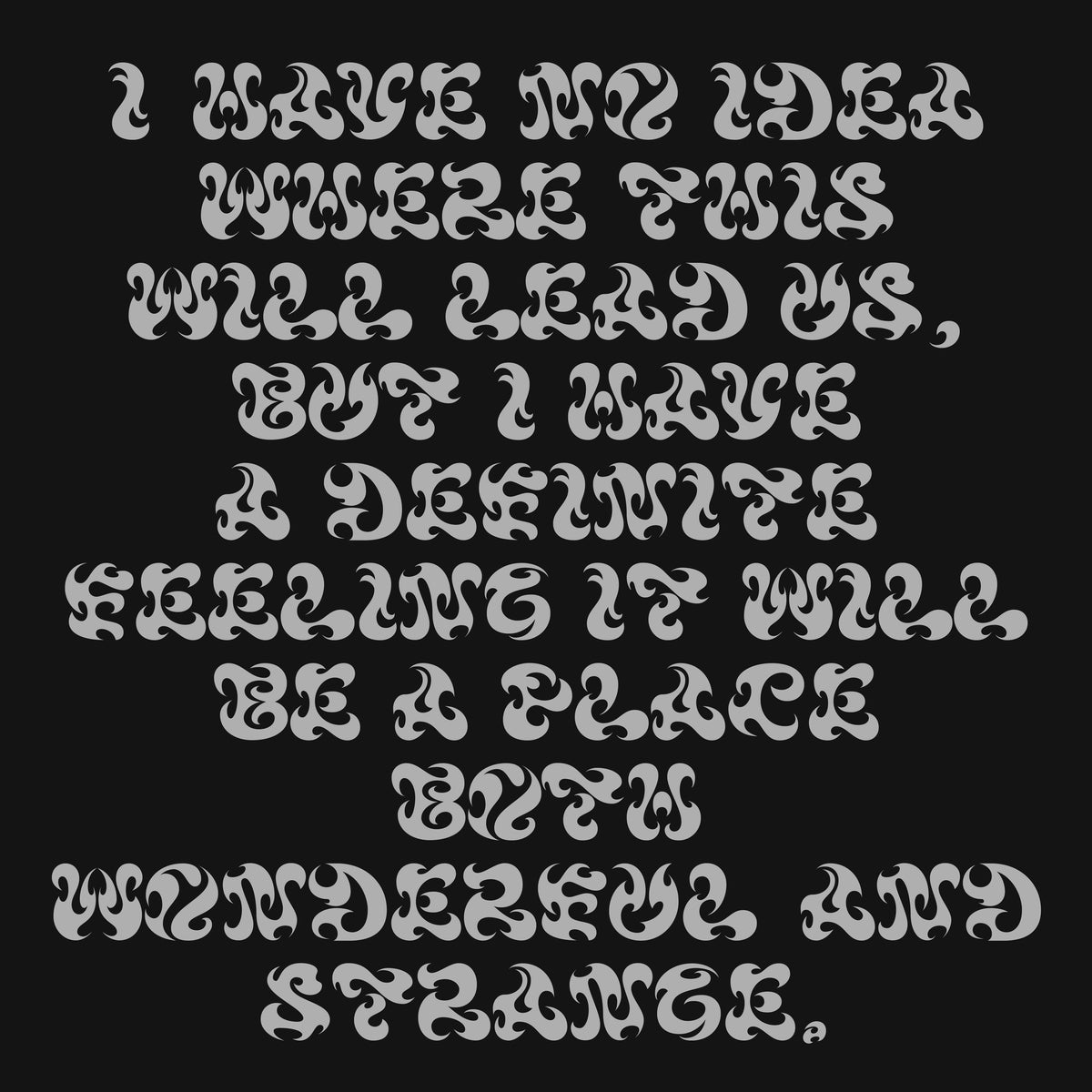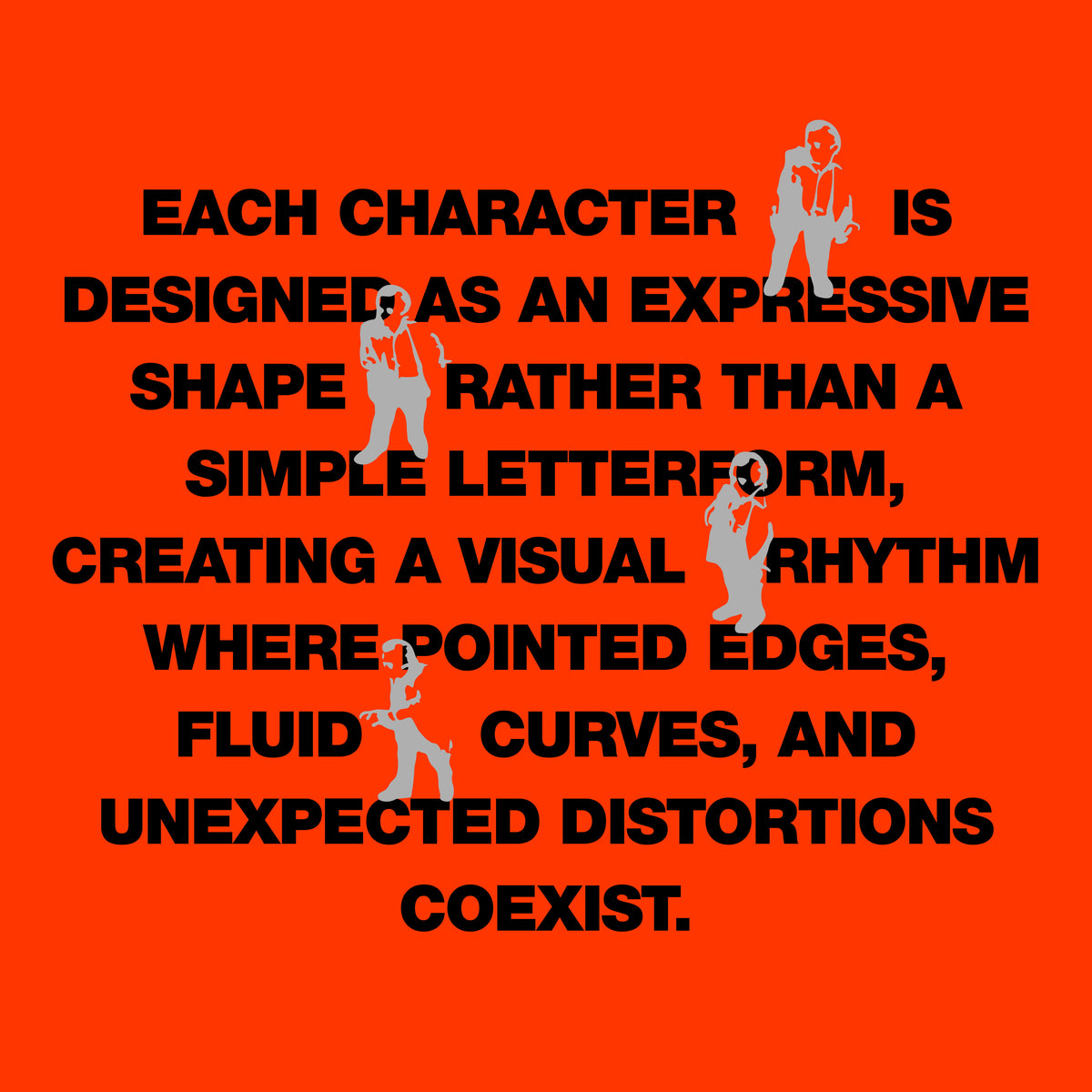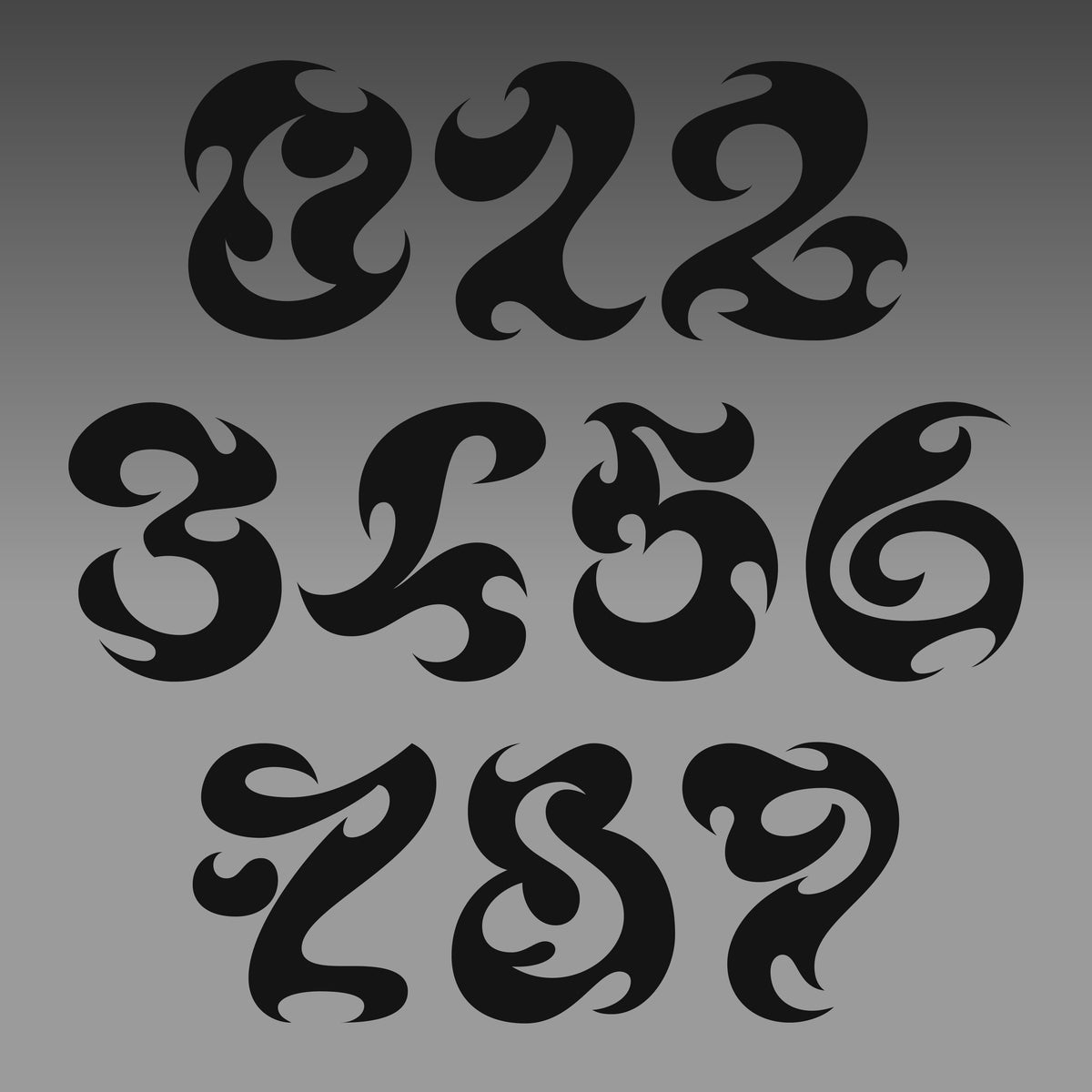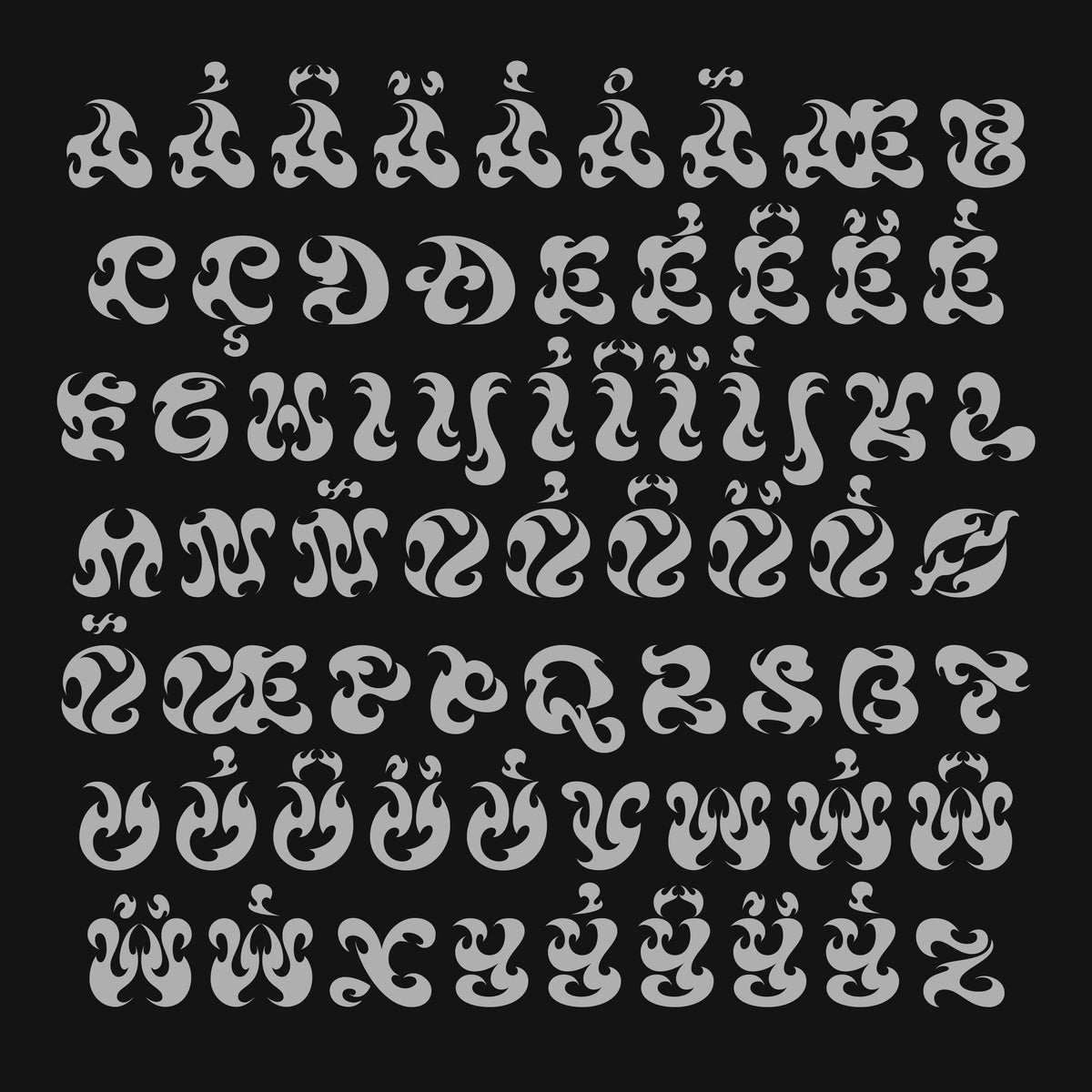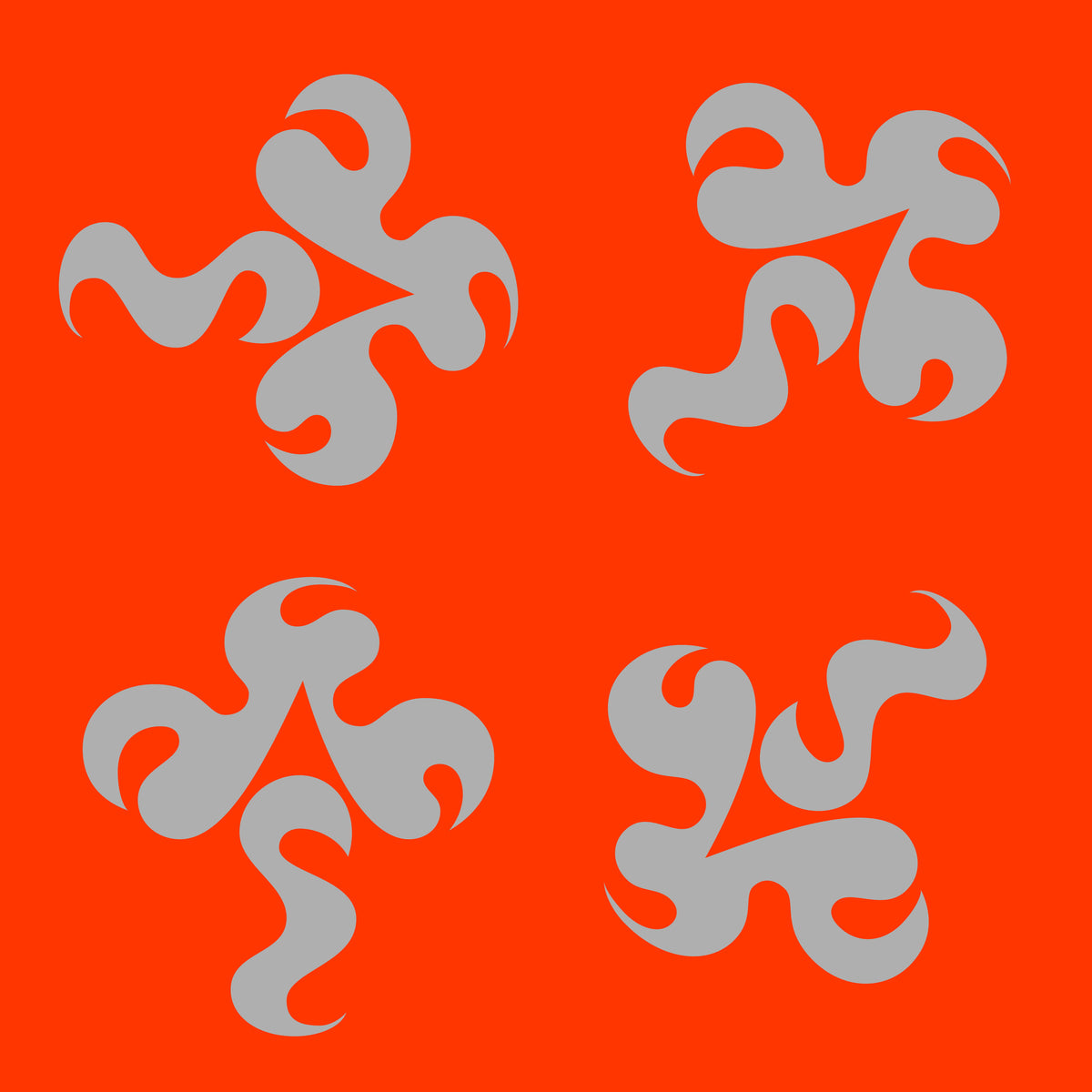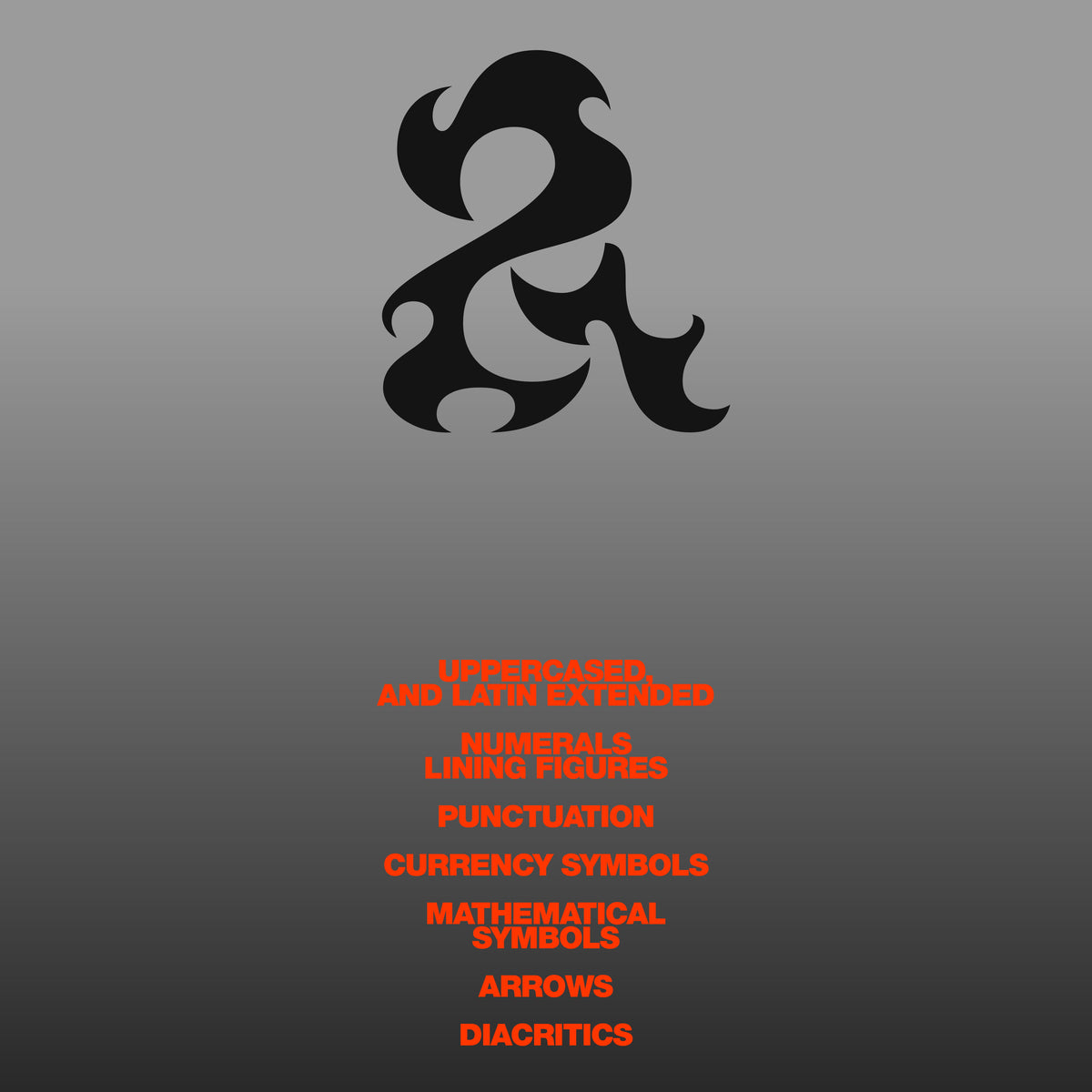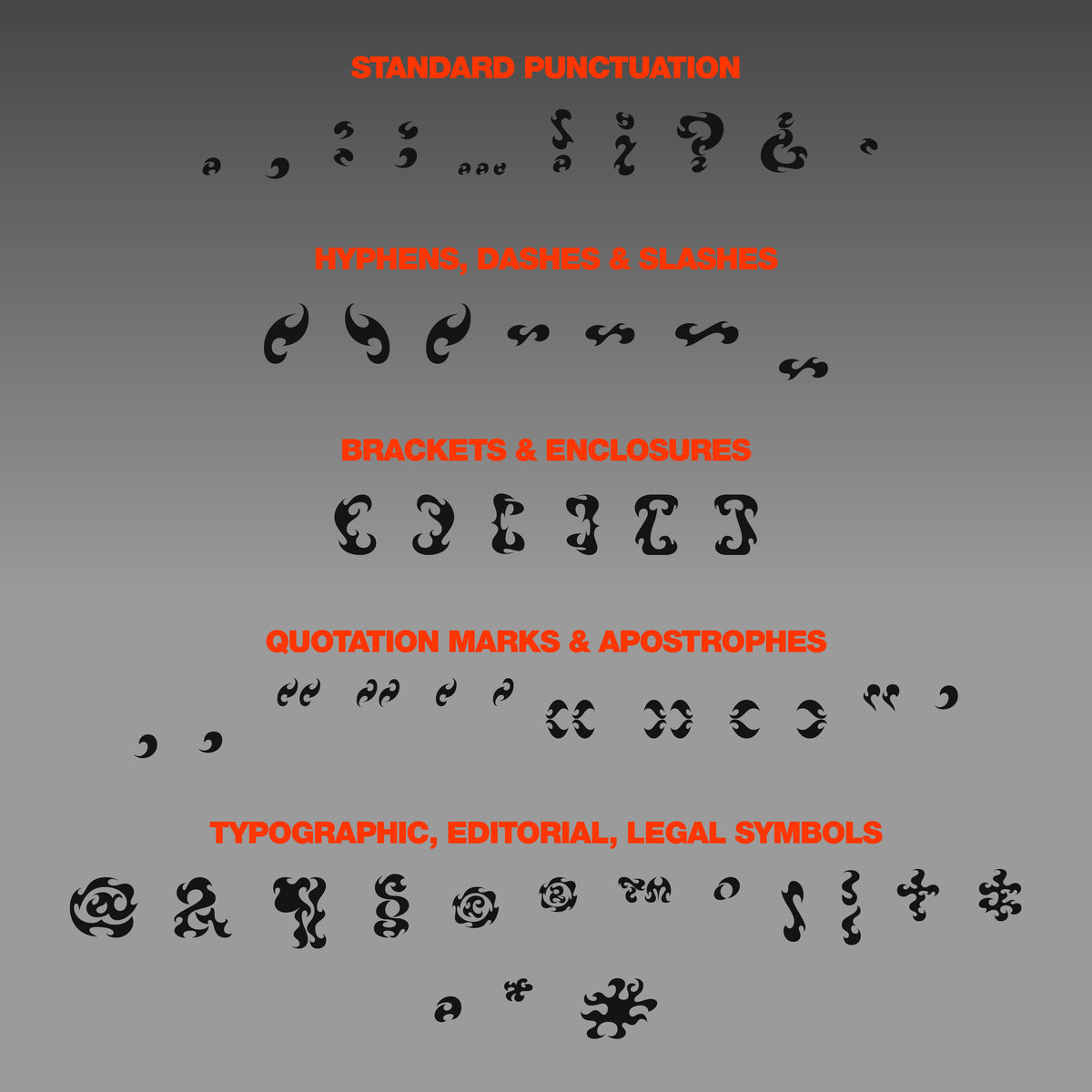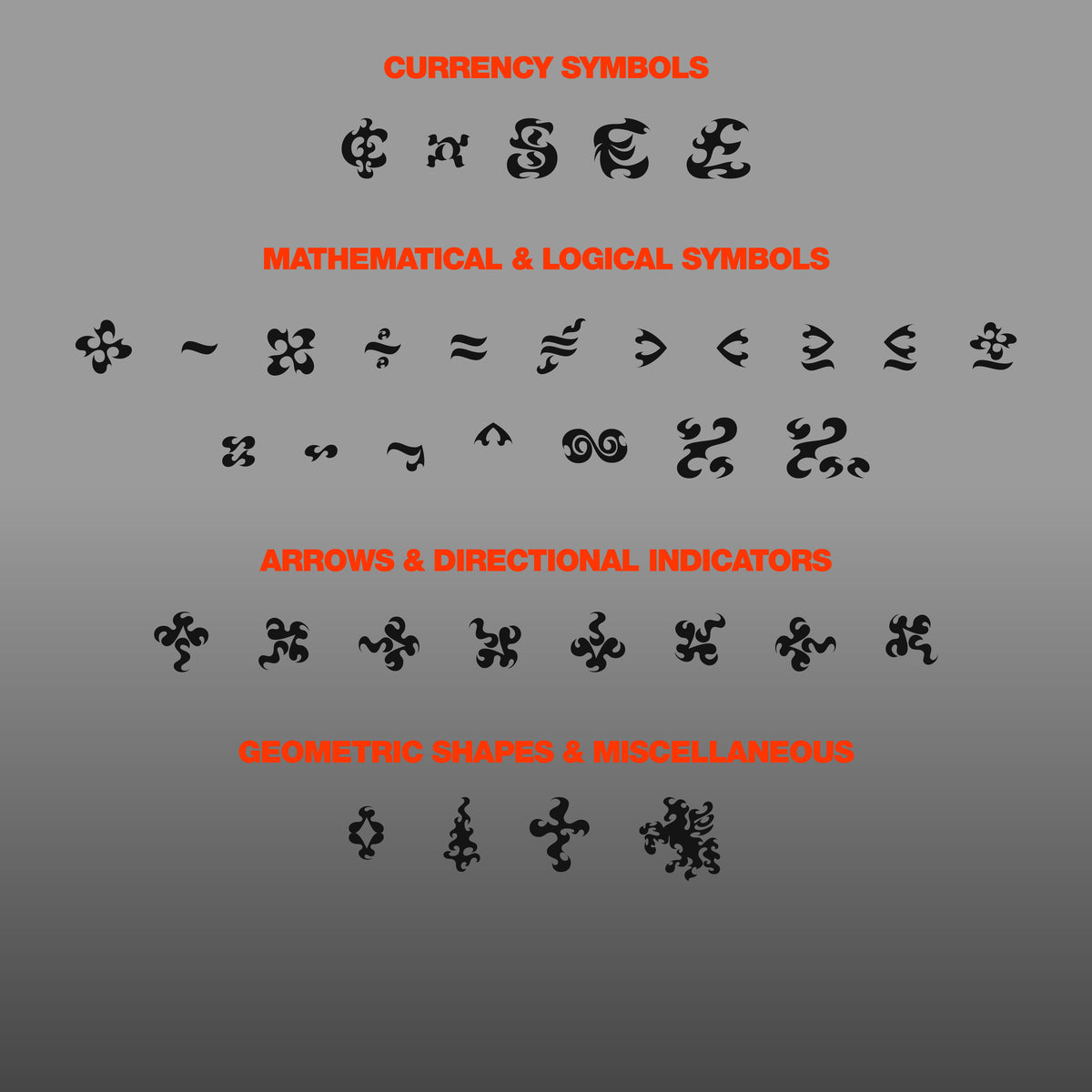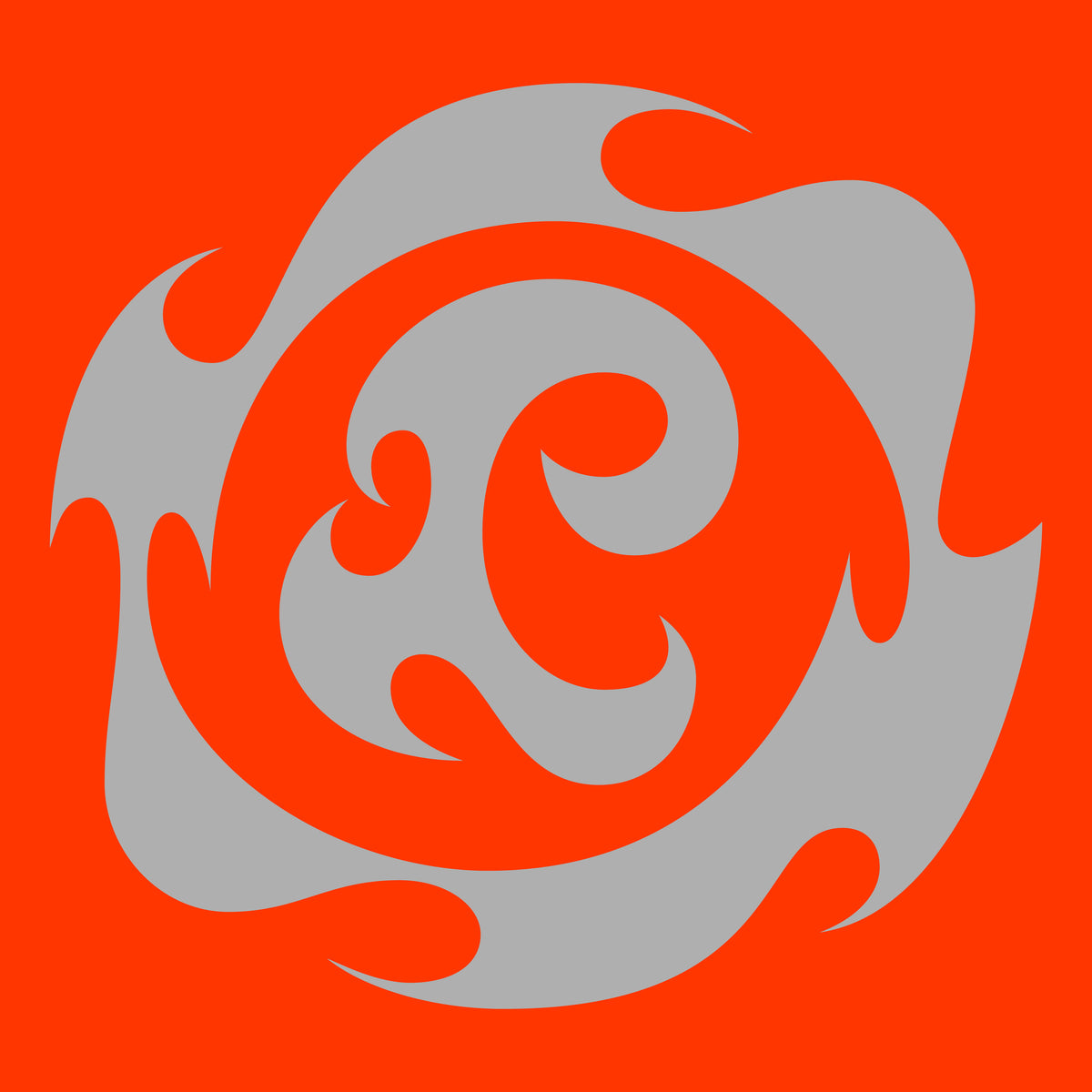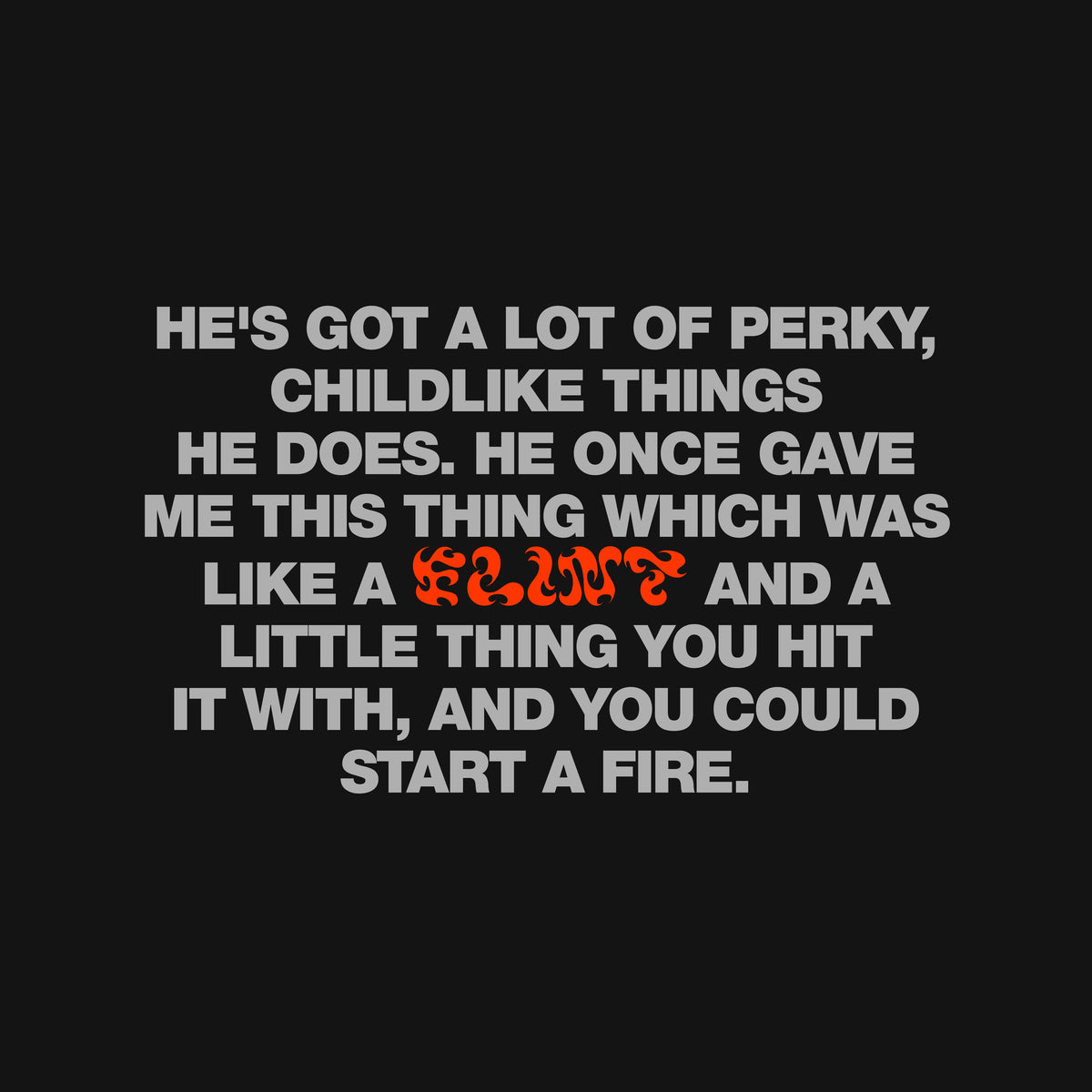
Flint Typeface
Flint is a contemporary display typeface built around sharp silhouettes and flame-like forms. It translates the movement of fire into a bold typographic system, giving headlines a strong, kinetic presence. Each character works as an expressive shape rather than a simple letterform, creating a visual rhythm where pointed edges, fluid curves, and unexpected distortions coexist with purpose.
Created for headlines and impactful visual compositions, Flint suits projects that call for assertive, highly recognizable typography. Its distinctive forms are especially suited for distortion, animation, layering, and custom typographic treatments, allowing designers to push the typeface beyond its original boundaries while retaining its fiery graphic character.
• 264 Glyphs
• Character set: Latin European
• Lowercase
• Diacritics
• Alternates
• Symbols
• Currency
• Mathematics